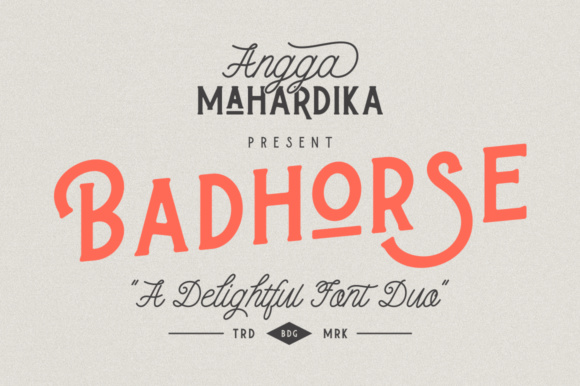
Introducing Badhorse Font, a captivating and versatile addition to your font collection! Created by AMTYPES, this font duo is designed to elevate your designs with its clean characters and playful script.
Whether you're designing headlines, signs, posters, or cards, Badhorse Font is here to make your creative vision come to life.
With its clean serif font, Badhorse adds a touch of sophistication and elegance to any project. The precise and well-defined characters make it perfect for conveying a professional and polished look.
But that's not all! Badhorse also offers a playful script font, adding a touch of personality and creativity to your designs. The script font is perfect for adding a whimsical and handcrafted feel to your projects, making it ideal for invitations, quotes, and social media graphics.
Imagine the impact your designs will have with Badhorse Font. Your headlines will captivate readers, your signs will grab attention, your posters will stand out, and your cards will leave a lasting impression.
This font duo is not just visually appealing, but it also comes with a range of features to enhance your design process. With its extensive character set, you'll have access to various ligatures, alternates, and swashes, allowing you to customize your text and create unique compositions effortlessly.
Badhorse Font is more than just a font; it's a tool that empowers you to unleash your creativity and make a statement. It's perfect for designers, entrepreneurs, and anyone looking to make their projects shine.